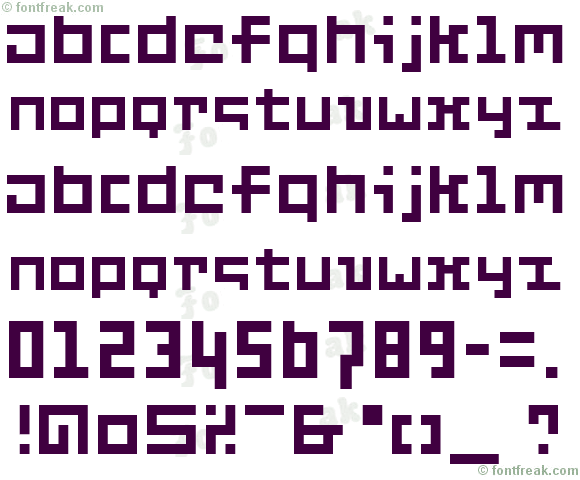
Six
About Six
The "Six" font by Peter Van Lancker is a striking display typeface that embodies a modern aesthetic with its bold and geometric forms. This sans-serif font features a clean and minimalist design, making it versatile for various applications. One of its standout characteristics is the consistent stroke weight, which lends it a sturdy appearance while still allowing for some playful expression through its unique letterforms. The spacing is well-balanced, ensuring readability even at larger sizes, and the absence of excessive decorative elements keeps the focus on its contemporary appeal.
Best suited for a range of creative projects, the Six font excels in areas such as branding and advertising, particularly for tech startups or modern businesses looking to convey innovation. It is also an excellent choice for eye-catching headlines in magazine layouts or social media graphics, where clarity and style are paramount. Additionally, its boldness makes it perfect for signage and posters, drawing attention while maintaining a sleek look. Graphic designers and content creators will find it particularly useful for creating dynamic visuals that resonate with modern audiences.
What sets the Six font apart is its ability to merge simplicity with a bold statement. Its geometric shapes and consistent stroke weights create a harmonious balance that captures attention without overwhelming the viewer. For those seeking a modern typeface that is both functional and stylish, the Six font is an exceptional choice that will elevate any design project.